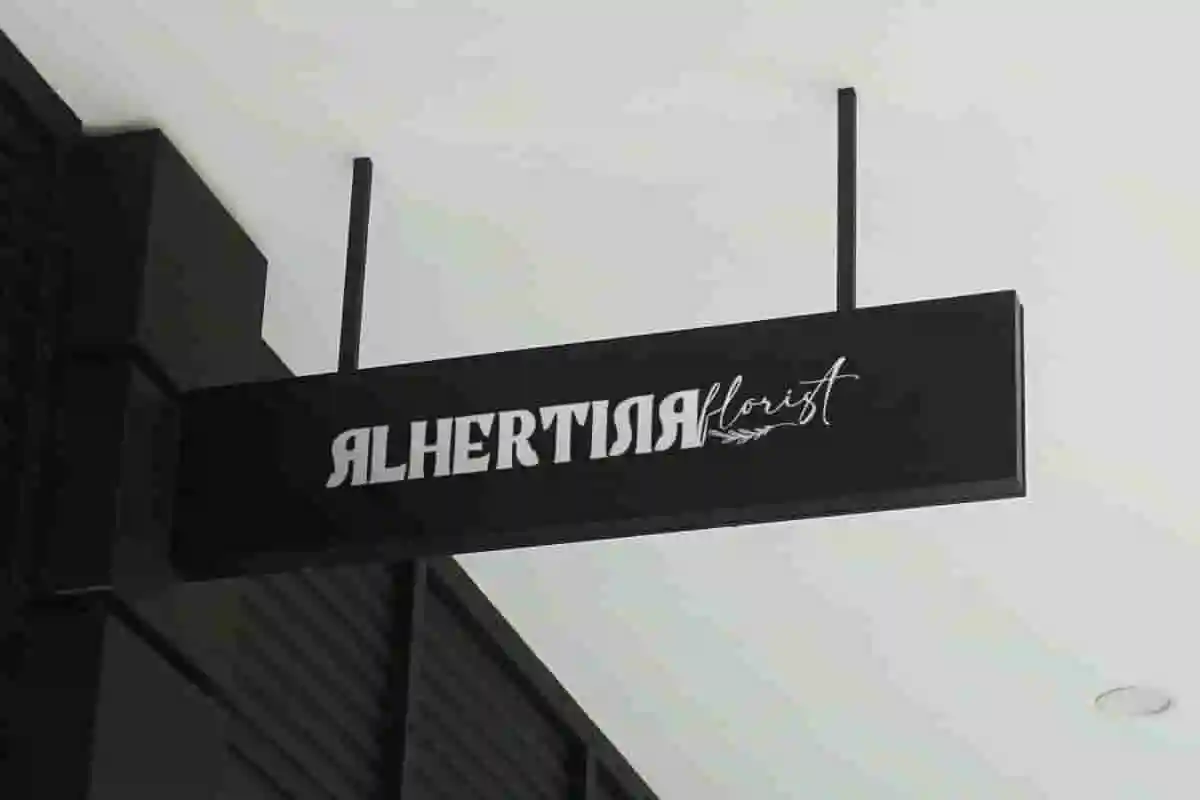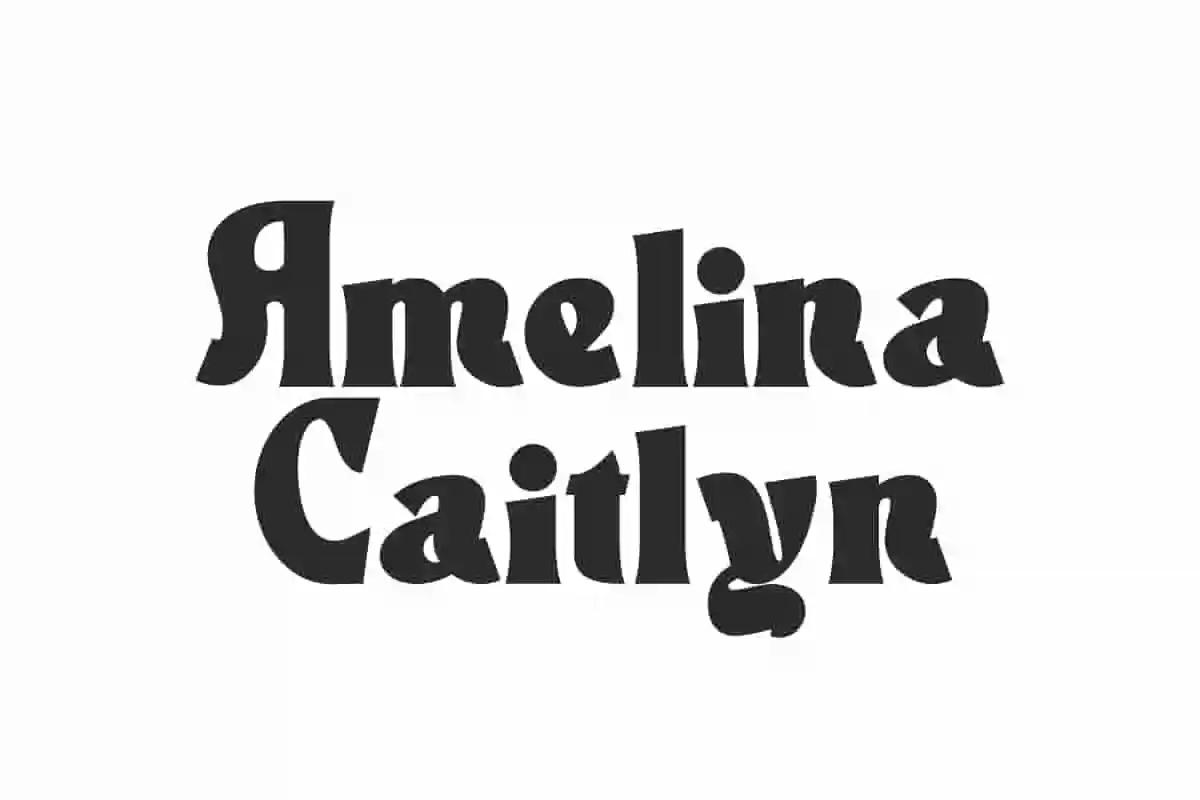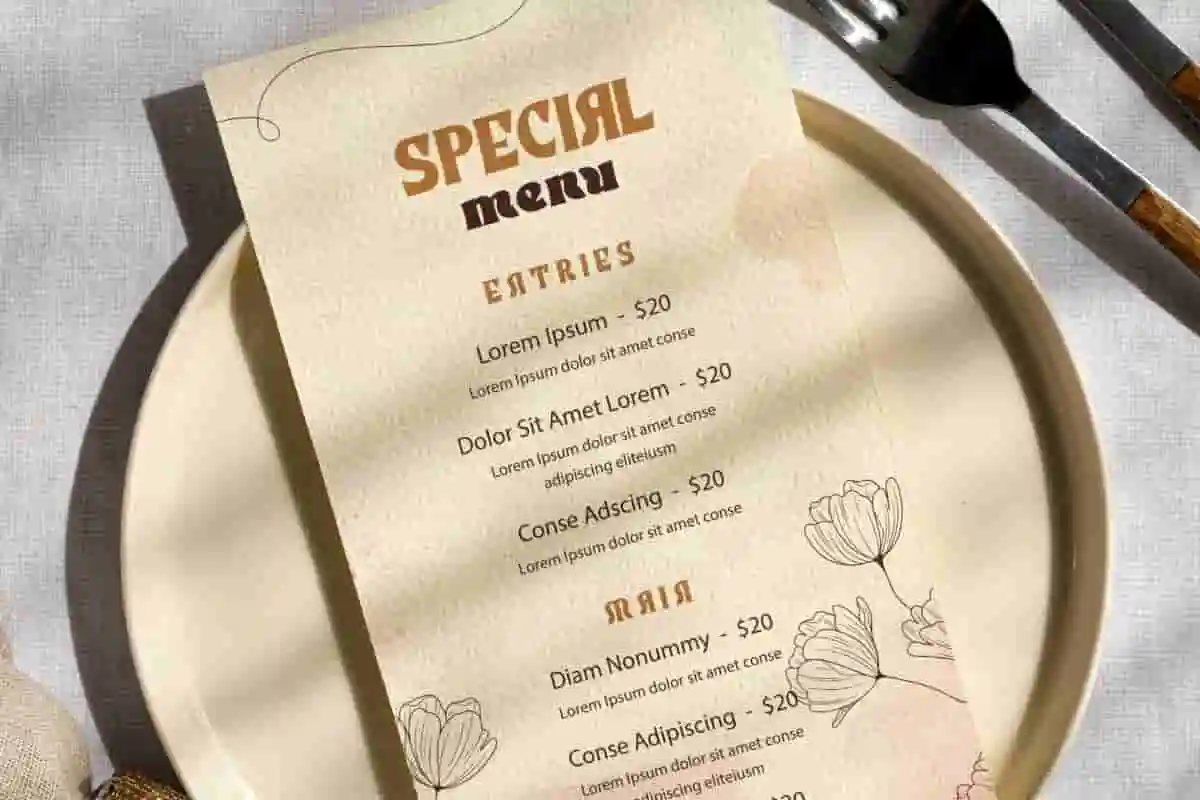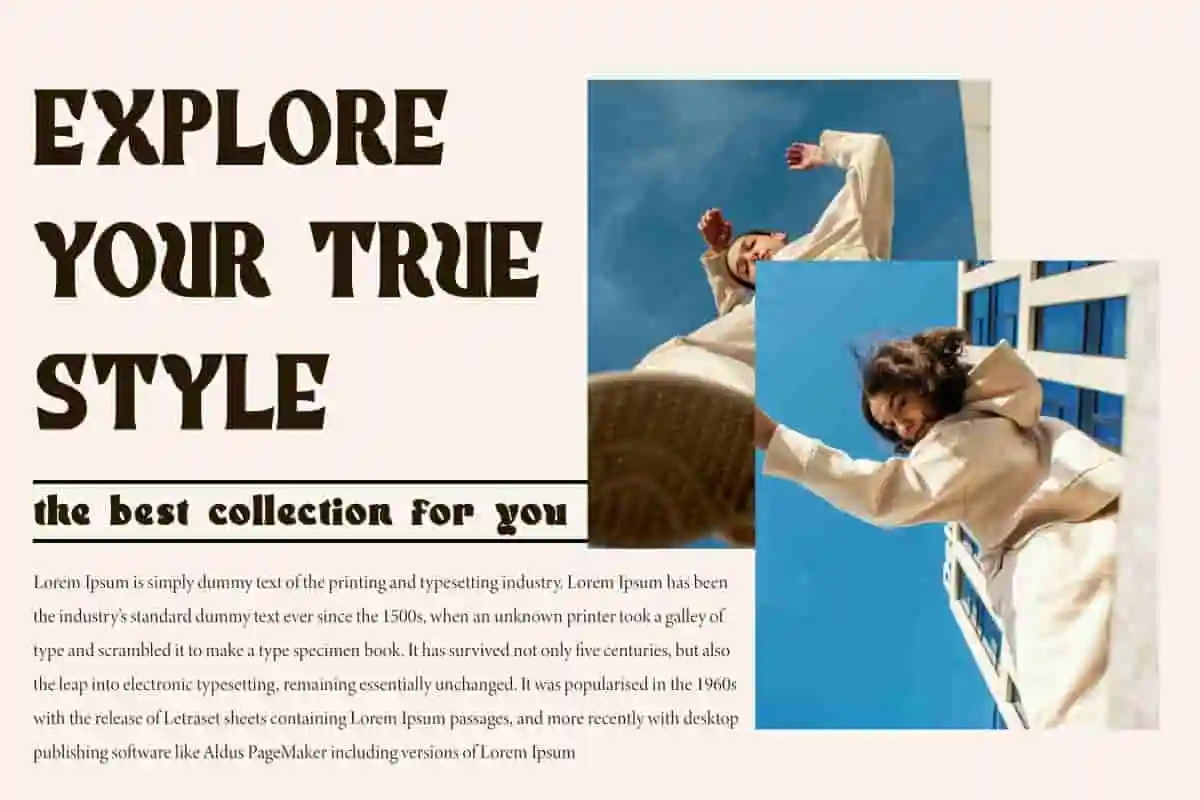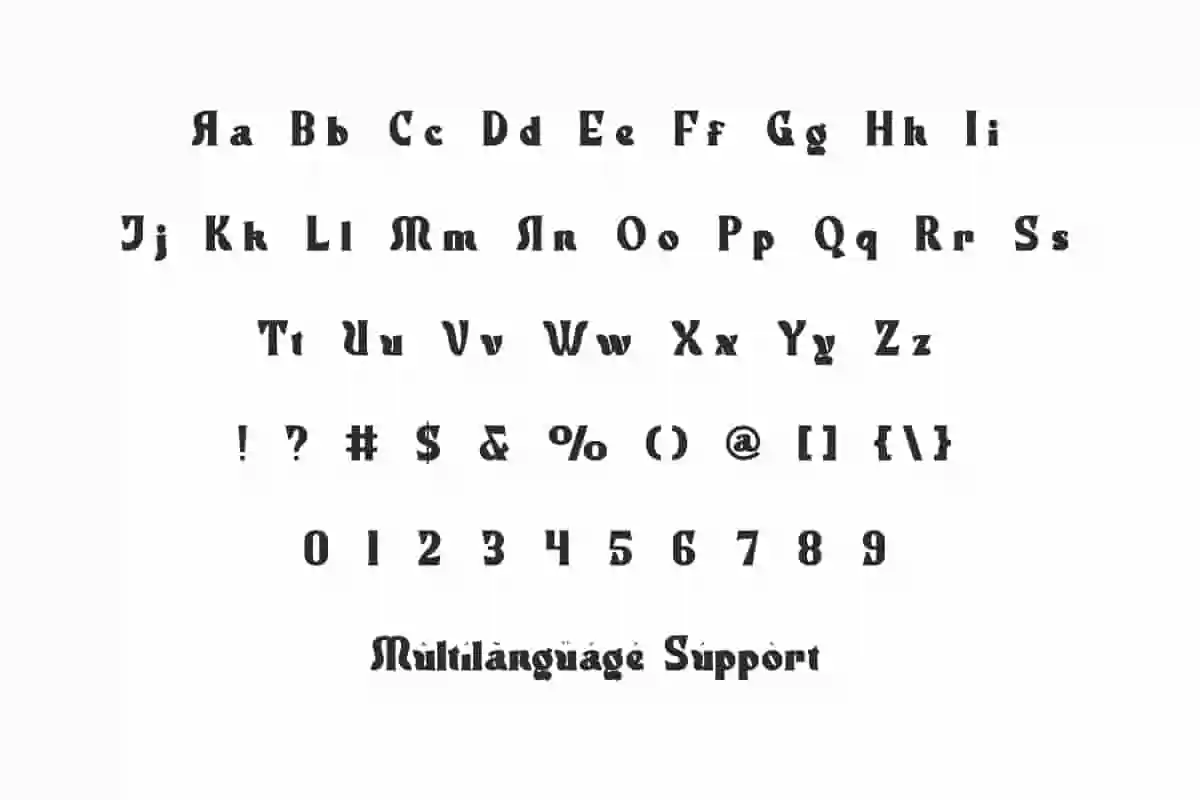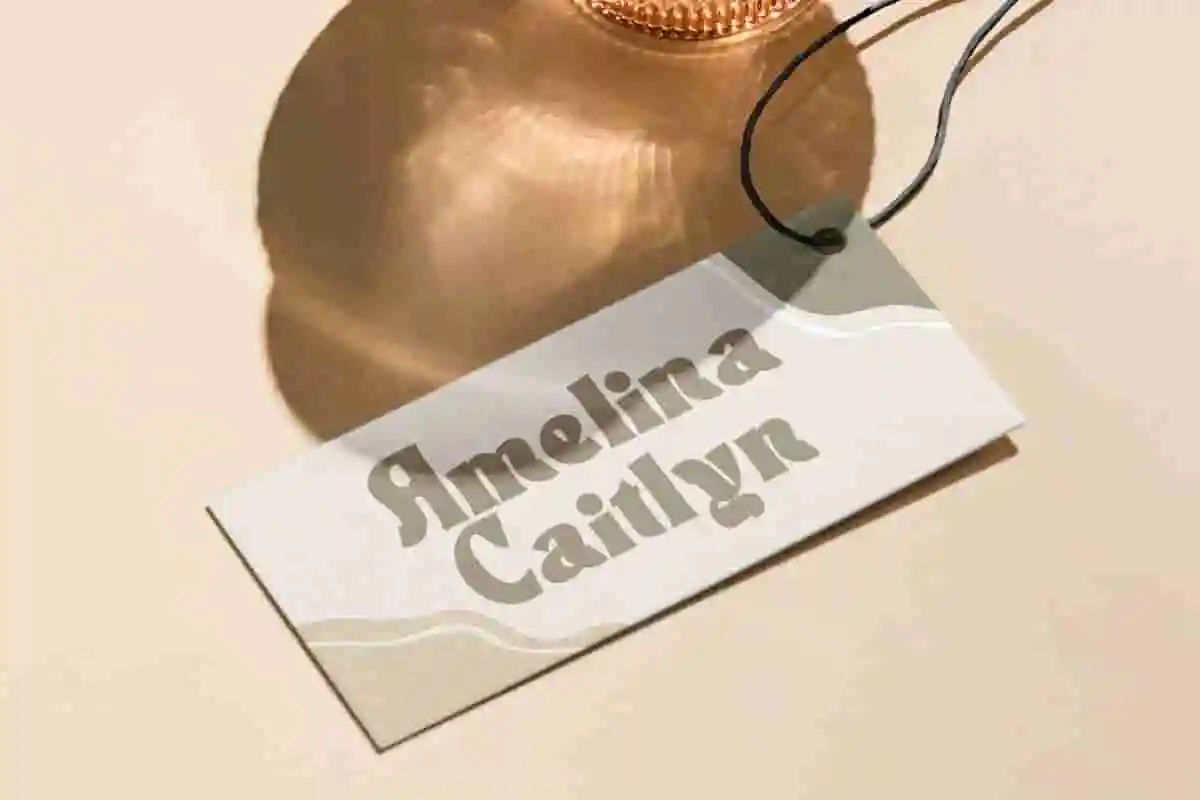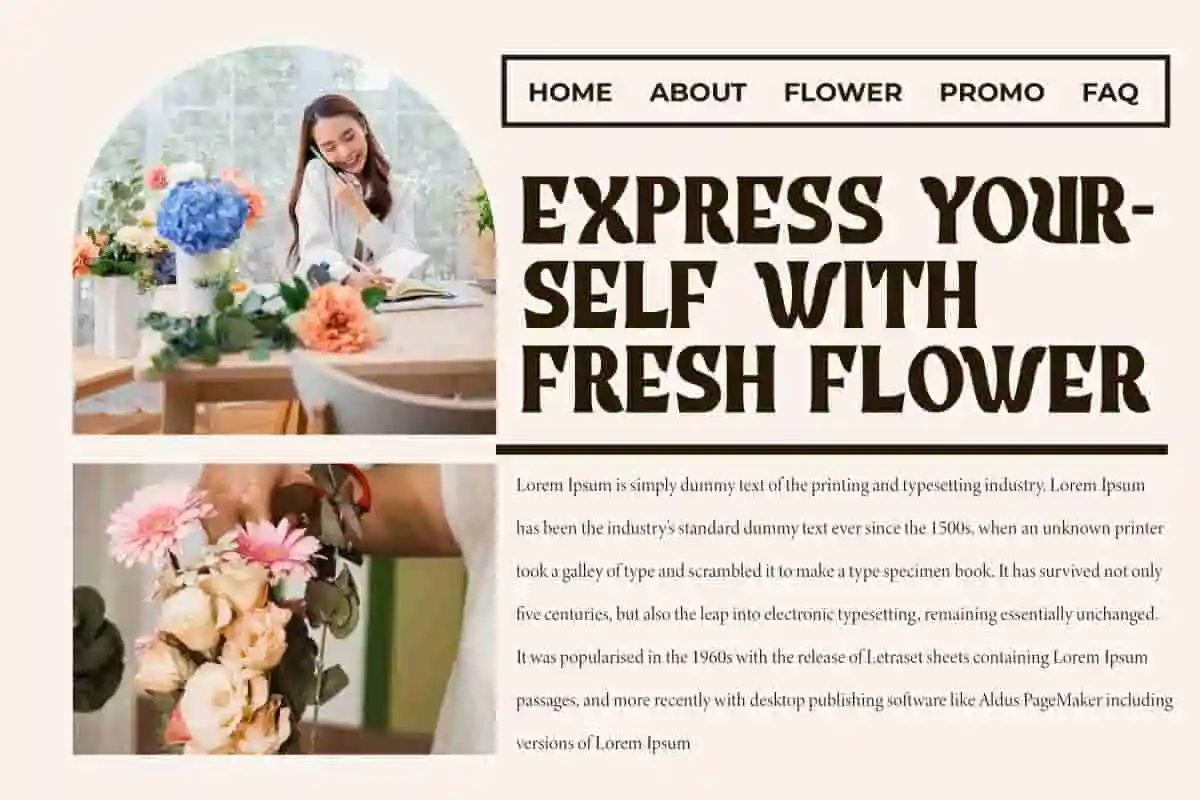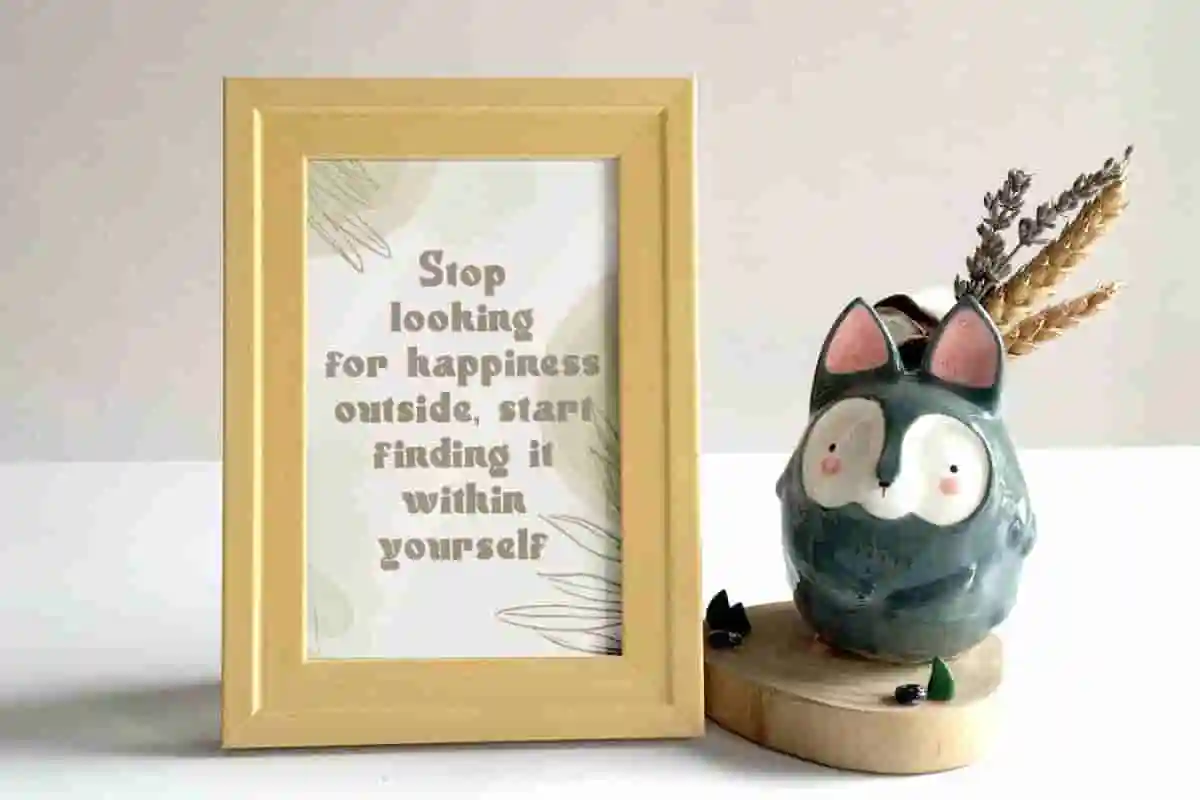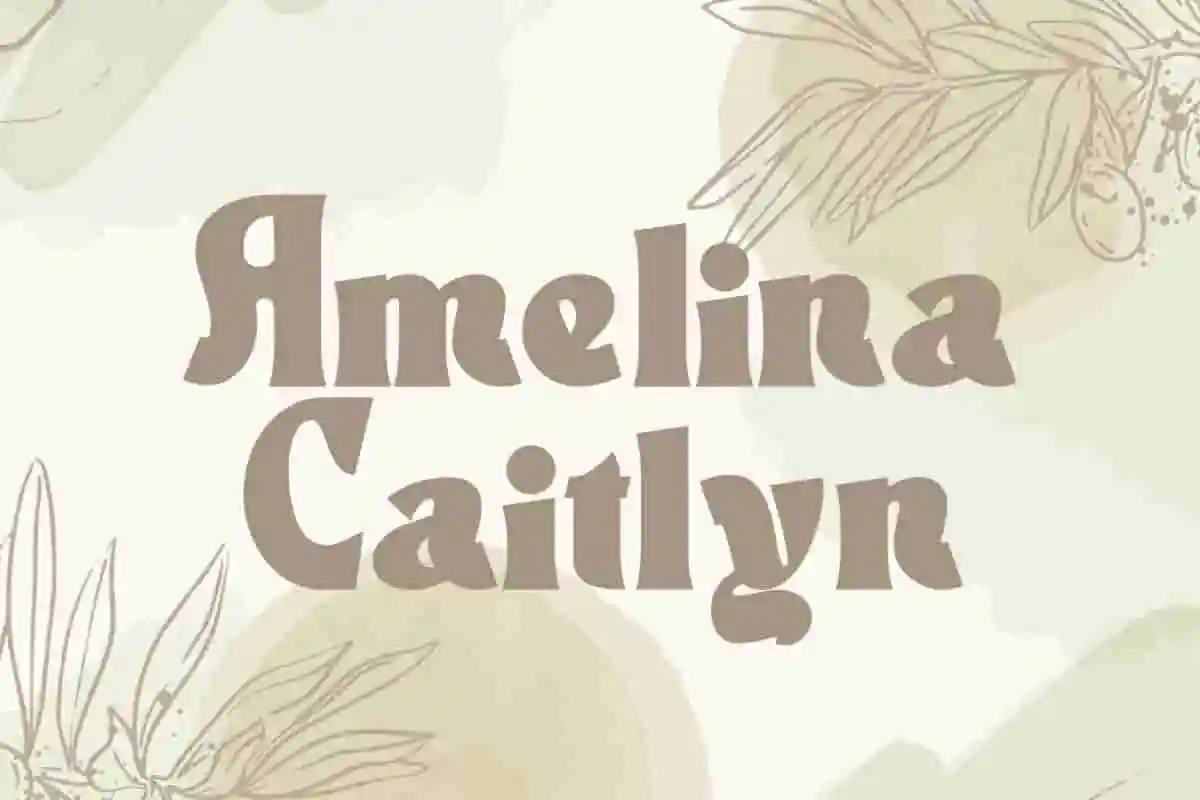
Amelina Caitlyn Font is a beautiful bold casual serif display font that transforms ordinary text into an extraordinary masterpiece.
Amelina Caitlyn Font is a beautiful bold serif display font designed with classic branding in mind. This beautiful font seamlessly blends vintage charm with contemporary style. Perfect for apps, blogs, brochure, flyer, greeting cards, headers, invitation, logos, menus, mockup, product label, quotes, template, title, website, etc.
Amelina Caitlyn Font includes full set of Uppercase and Lowercase Basic Characters, Numbers, Punctuation, and Symbols. It will be very suitable for accessories and gifts, advertising, beauty product, boutique, fashion, graphic design, home furniture, jewelry, restaurant, spa salon, and more. Your perfect choice for unmatched looks and timeless beauty. Let your creativity shine!